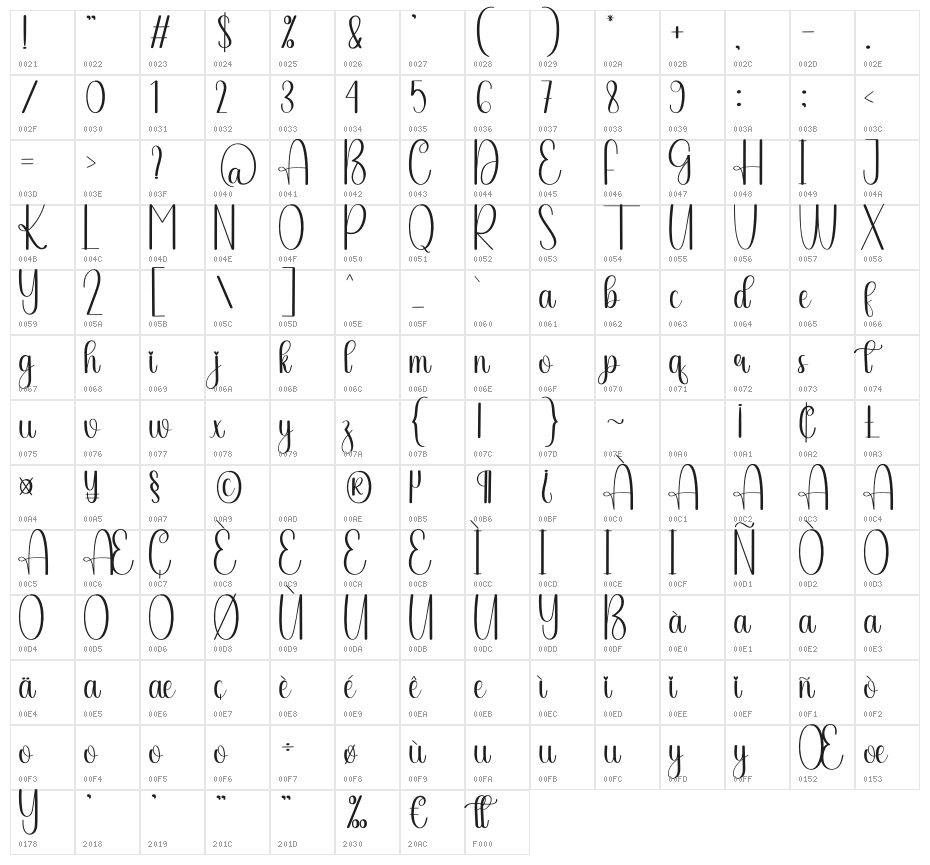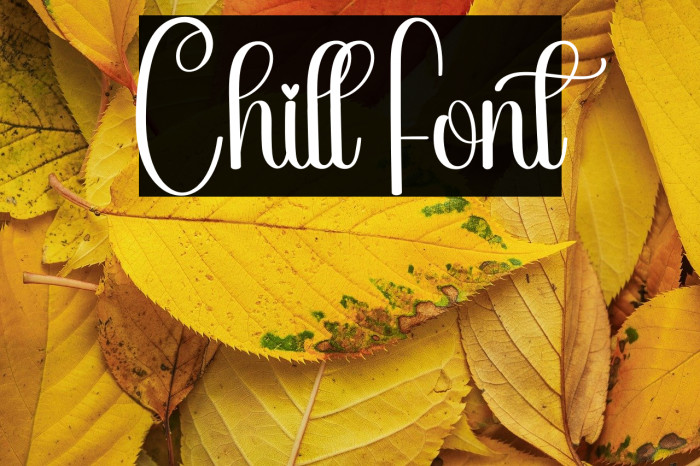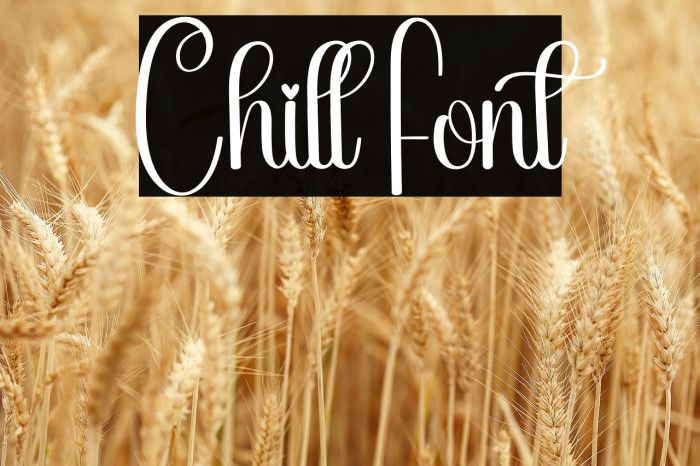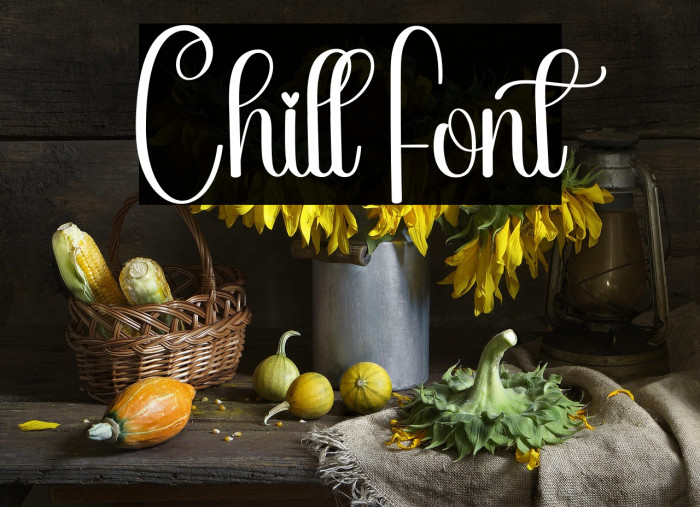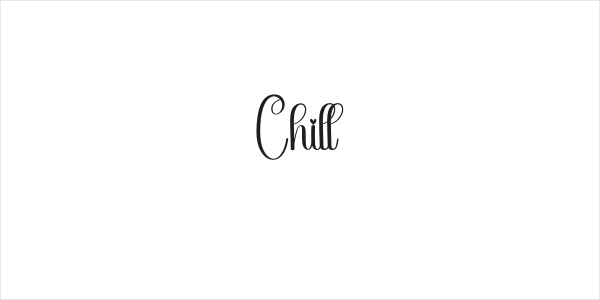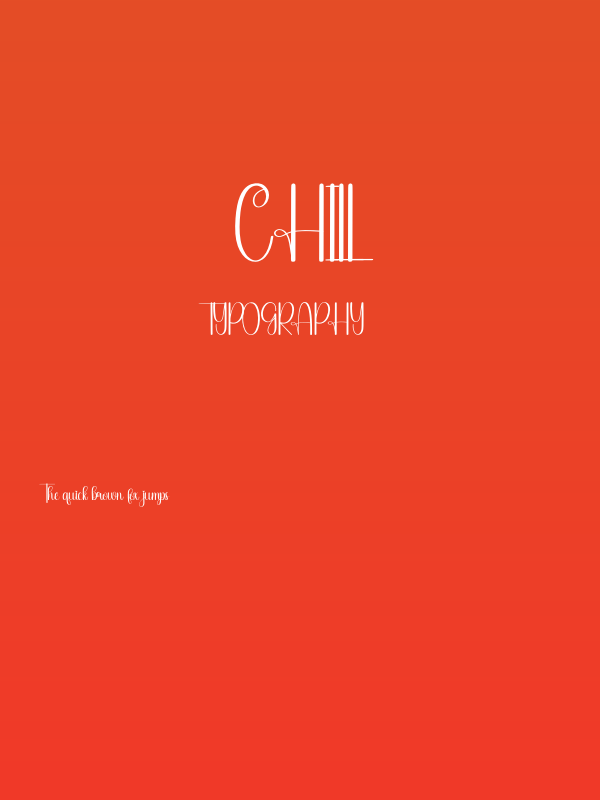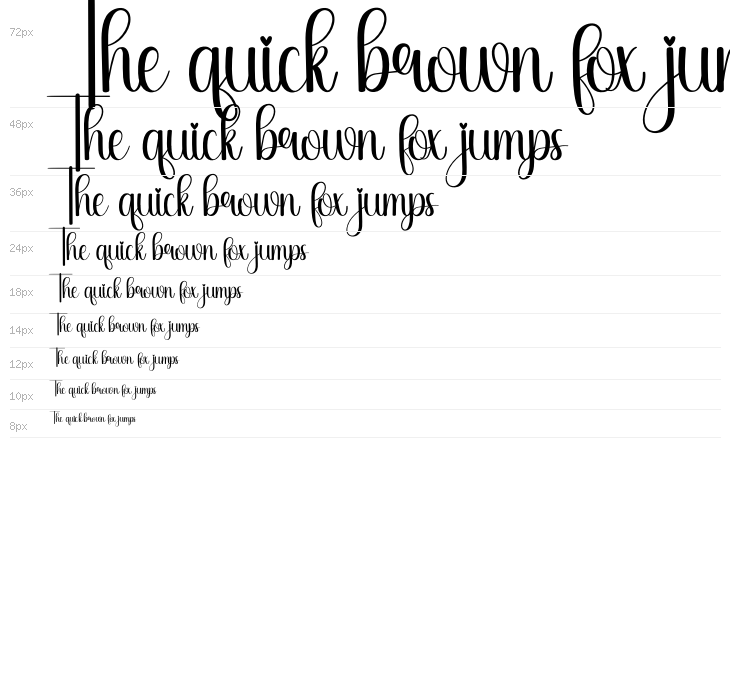
Chill Font
Chill Description
This font features a playful and whimsical script style with elegant, flowing lines. The uppercase letters are tall and slender, with exaggerated loops and curves that give a sense of movement and grace. The lowercase letters maintain a consistent style, with some characters featuring unique flourishes that add to the font's charm. The numbers are designed to match the overall aesthetic, with a similar balance of curves and straight lines. Special characters are included, maintaining the same whimsical style. This font is ideal for projects that require a touch of elegance and creativity.
Use CaseLogos, Headlines, Invitations
Proposed ProjectsIdeal for wedding invitations, greeting cards, branding, and decorative projects.